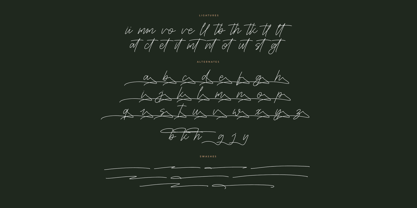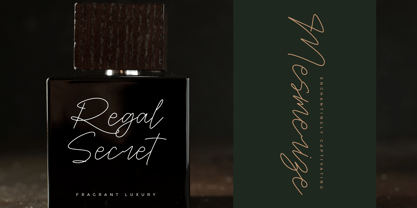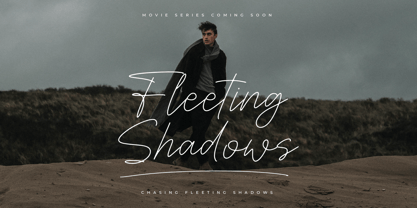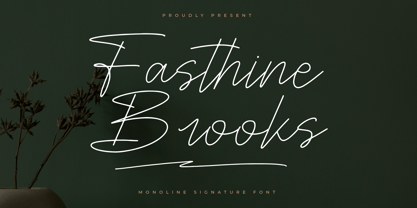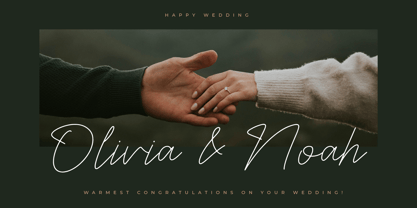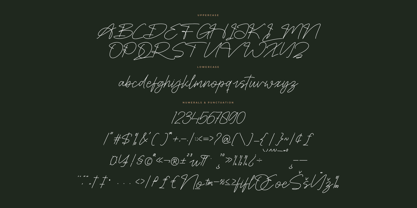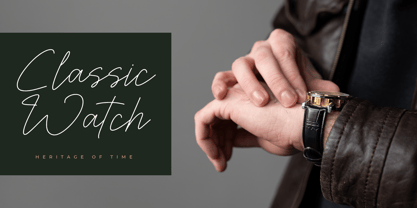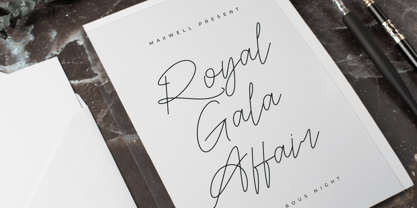
Fasthine Brooks
The Fasthine Brooks Font Family was designed by Heru Utama Putra and published by Letterena Studios. Fasthine Brooks contains 2 styles and family package options.
Fasthine Brooks – Monoline Signature Font , from Letterena, is a Luxury Script font, suitable for any projects such as: logos, branding projects, homeware designs, product packaging, mugs, quotes, posters, shopping bags, t-shirts, book covers, name card, invitation cards, greeting cards, label, photography, watermark, special events, and all your other luxury and beautiful projects that need a Luxury Script taste.